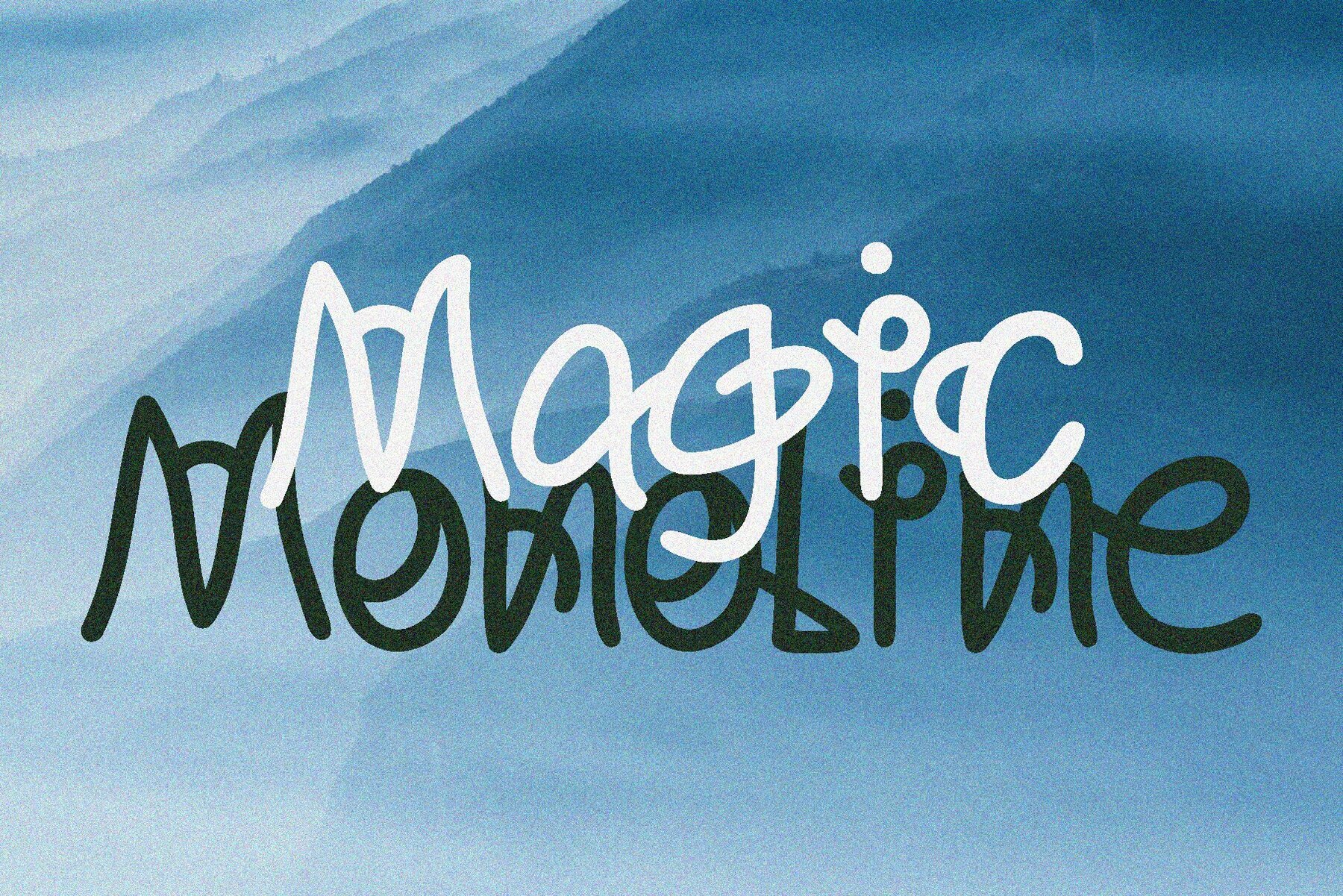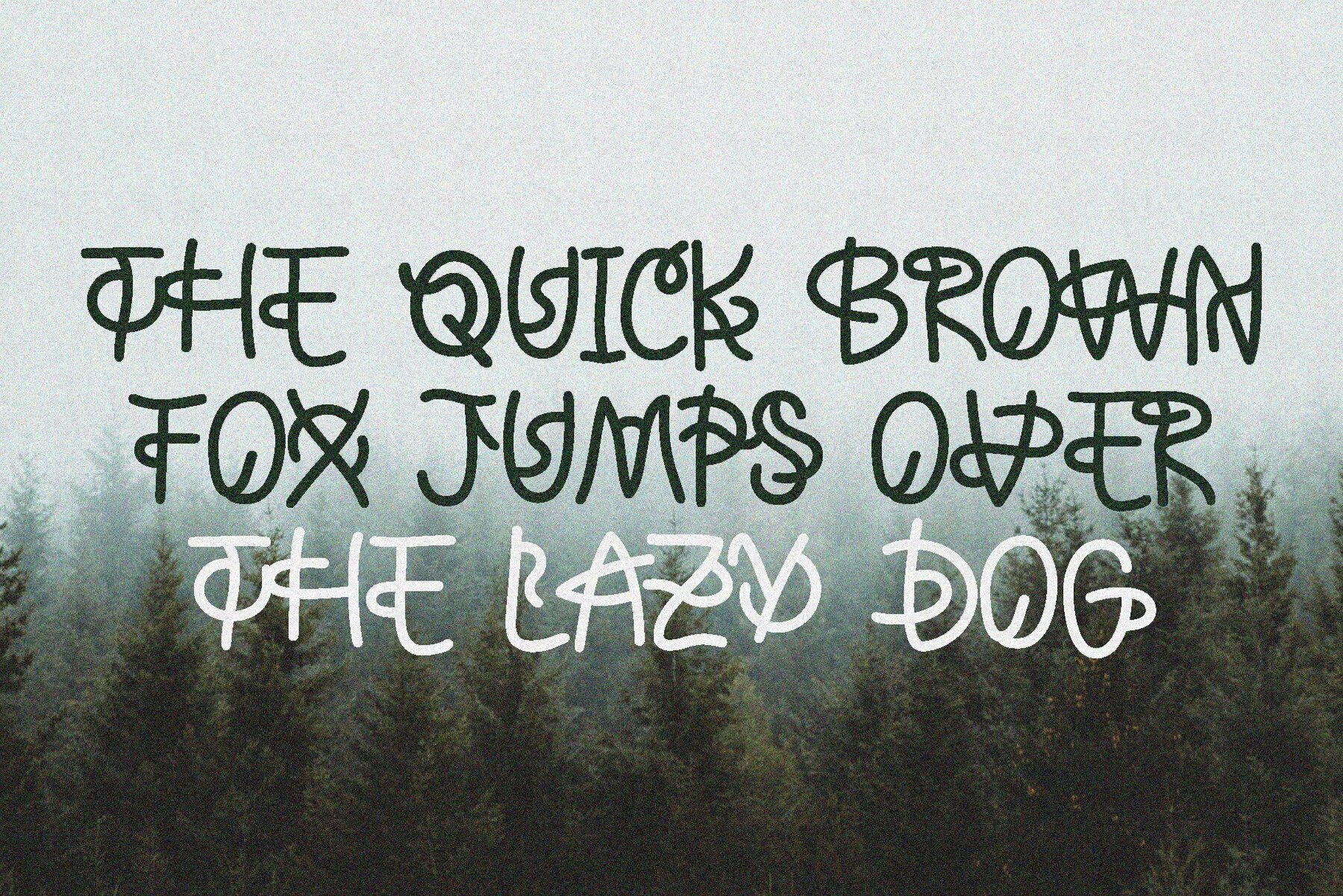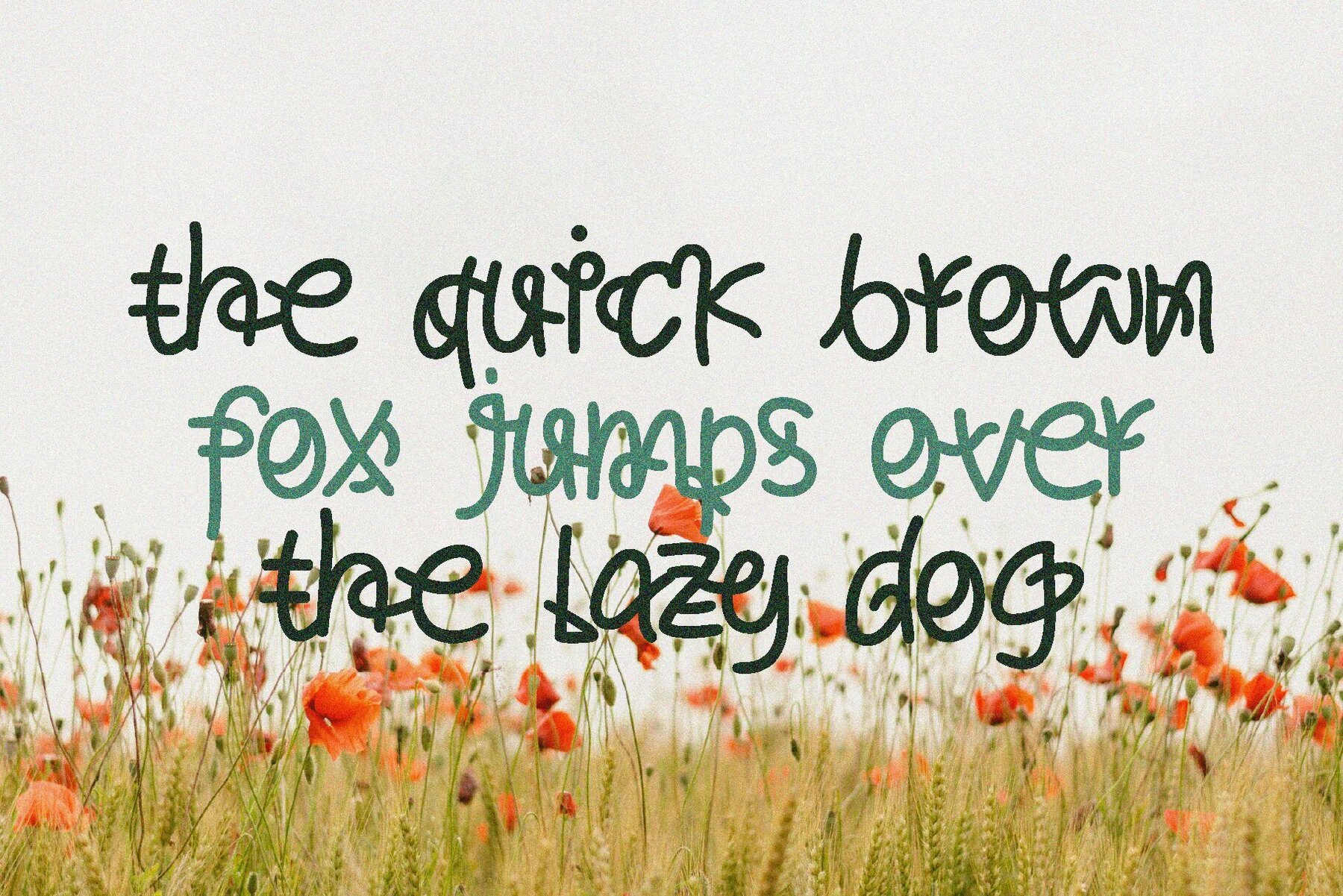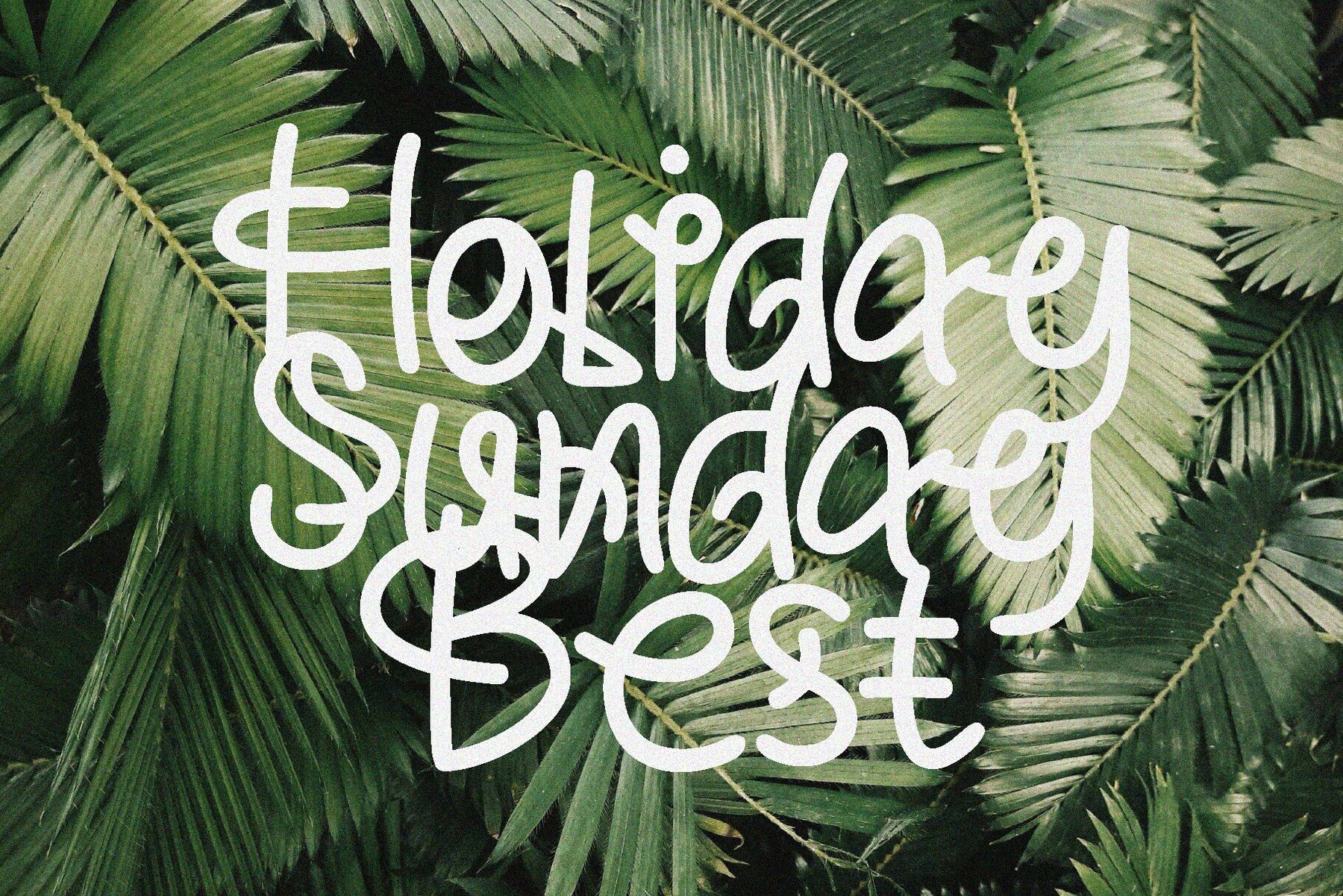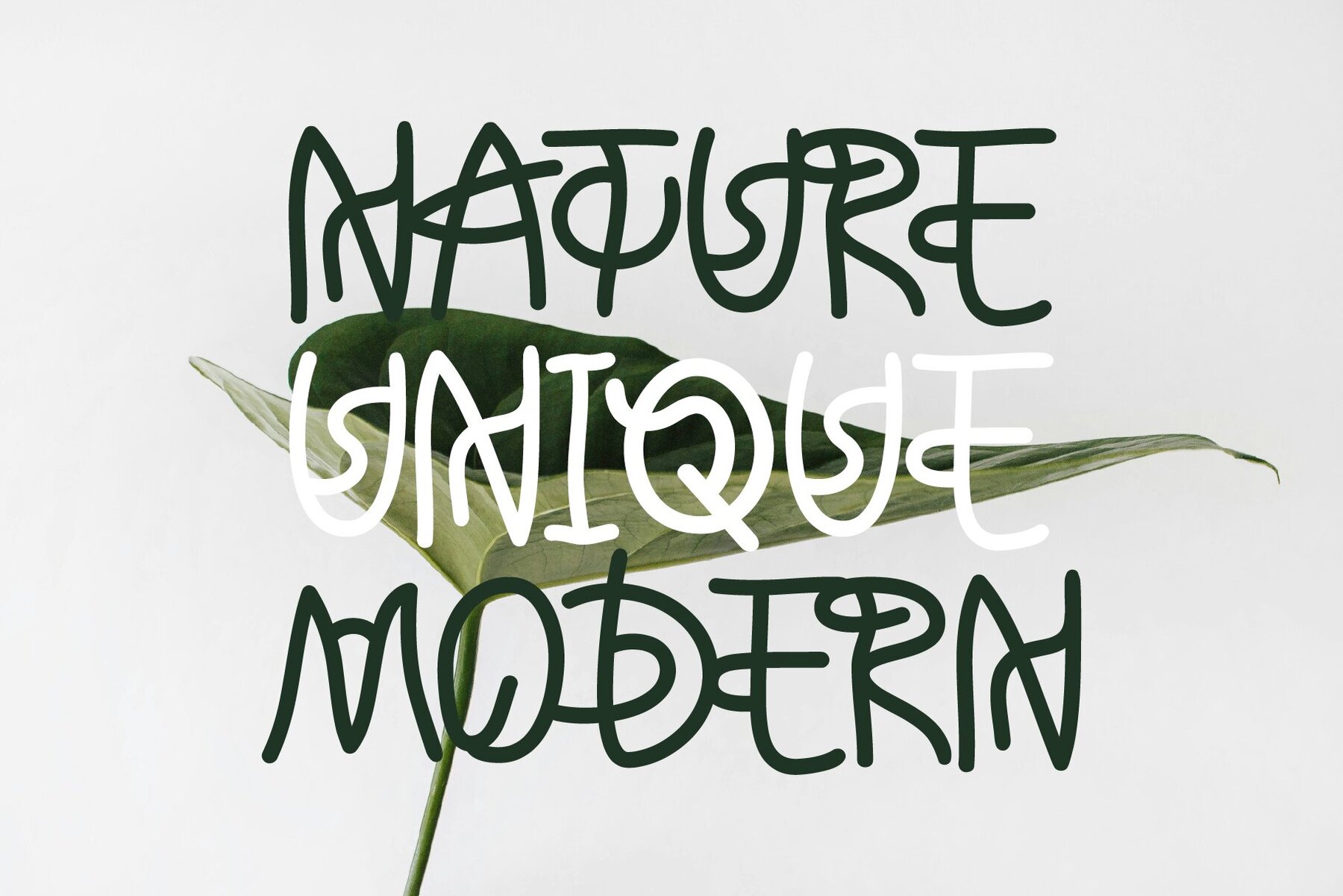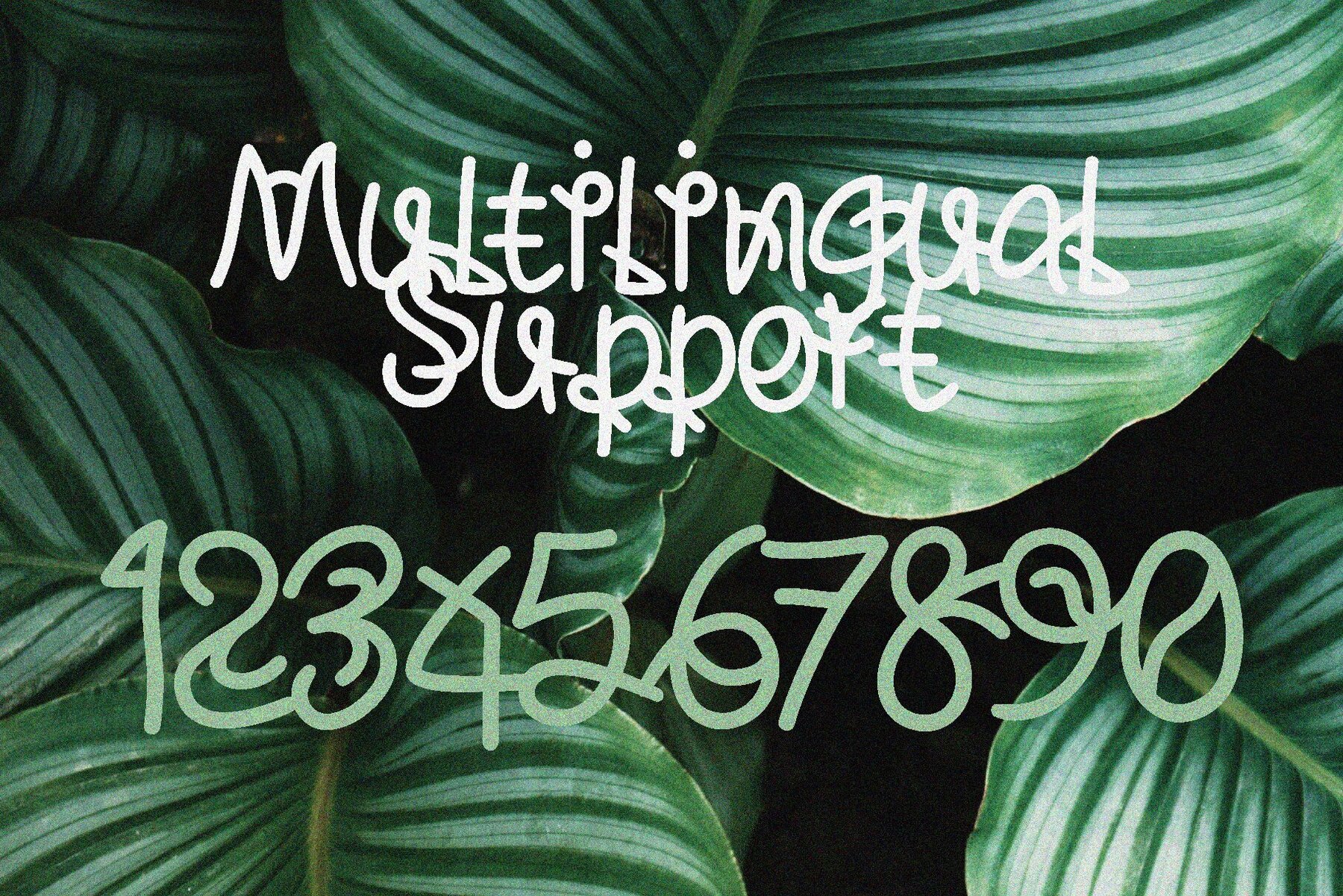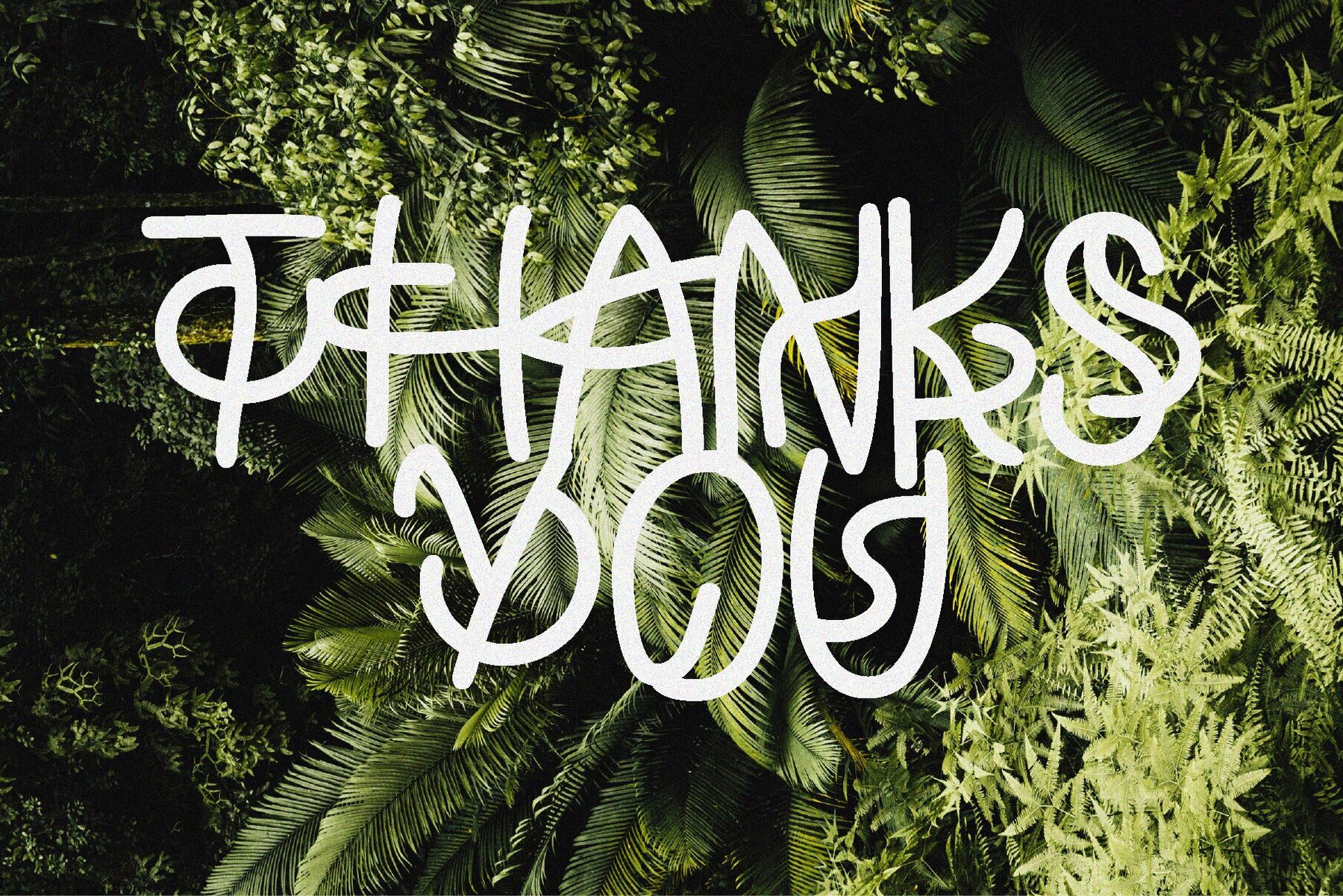
Magic Monoline Font
Magic Monoline Regular
Experience the whimsical charm of Magic Monoline, a unique handwritten font imbued with a touch of abstract flair. Each stroke radiates a magical and creative aura, crafted with smooth monoline curves and dynamic letterforms. This font gives the impression of writing conjured by a spell—elegant, fluid, and full of character. Perfect for creative projects, Magic Monoline adds an enchanting touch to branding, invitations, quotes, packaging, and any design in need of a sprinkle of magic. With its eccentric yet graceful design, it sparks curiosity and wonder in every word. Additionally, Magic Monoline offers multilingual support, ensuring versatility and adaptability for global use.Magic Monoline: Enchanted Handwriting Font